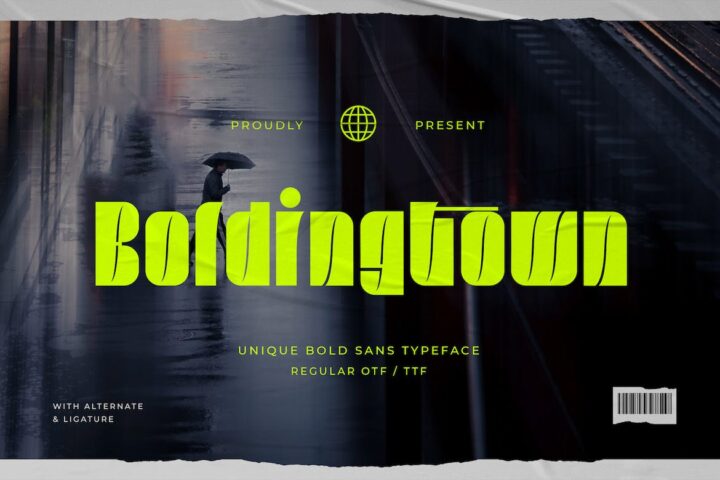
Boldingtown – Unique Bold Sans Typeface
Boldingtown is a unique bold sans font. This sans font will be the ideal choice for any cool project or great design you wish to develop.